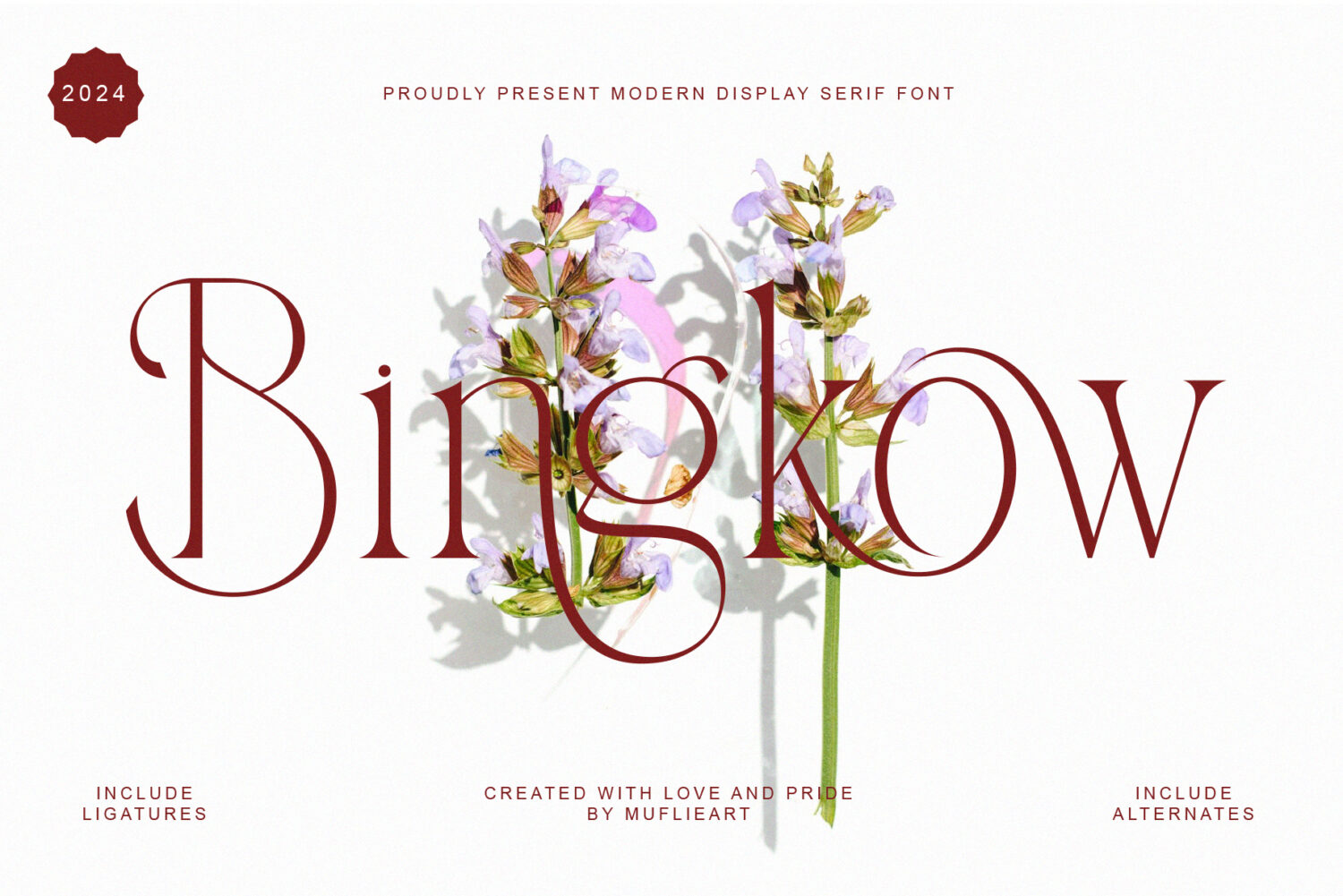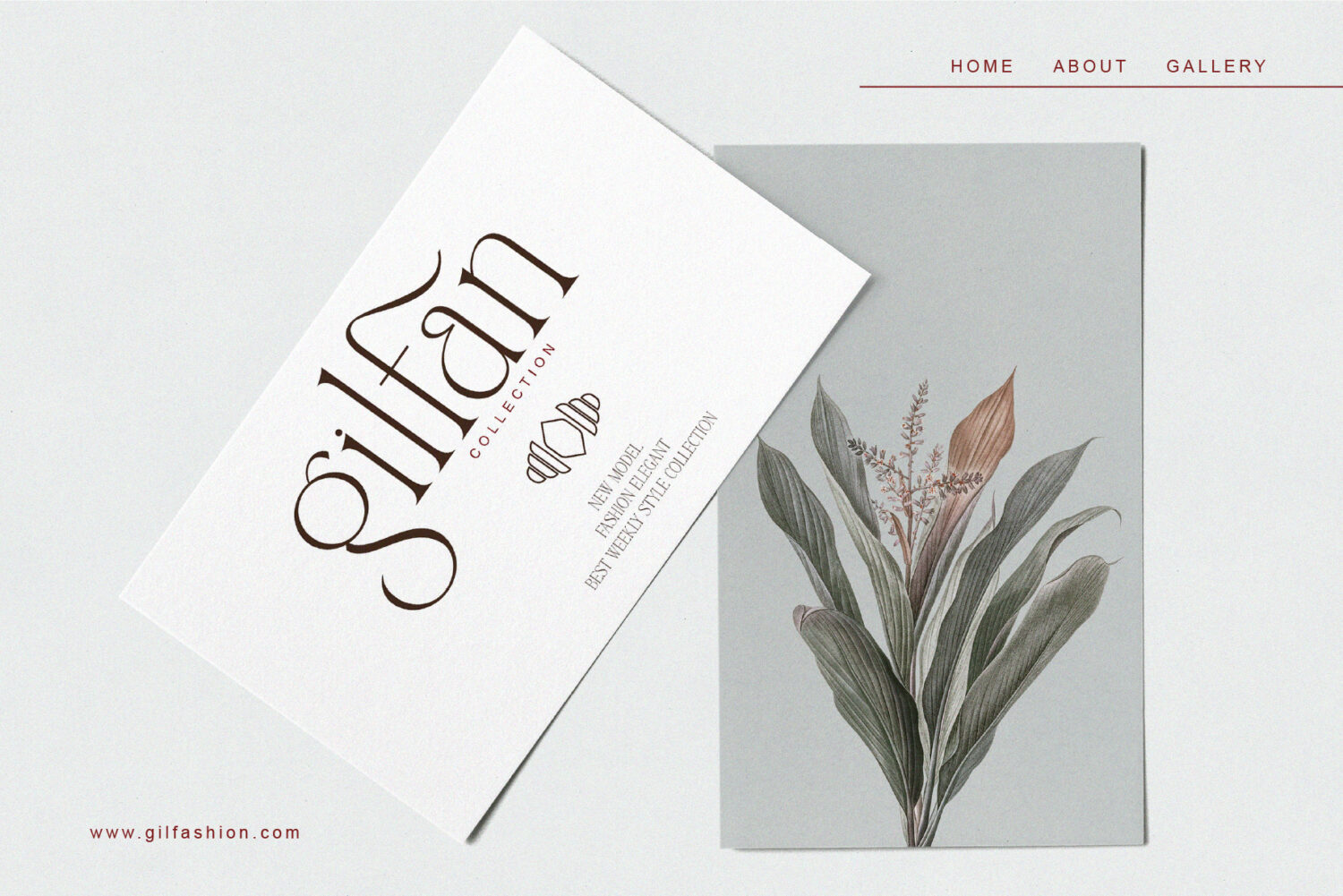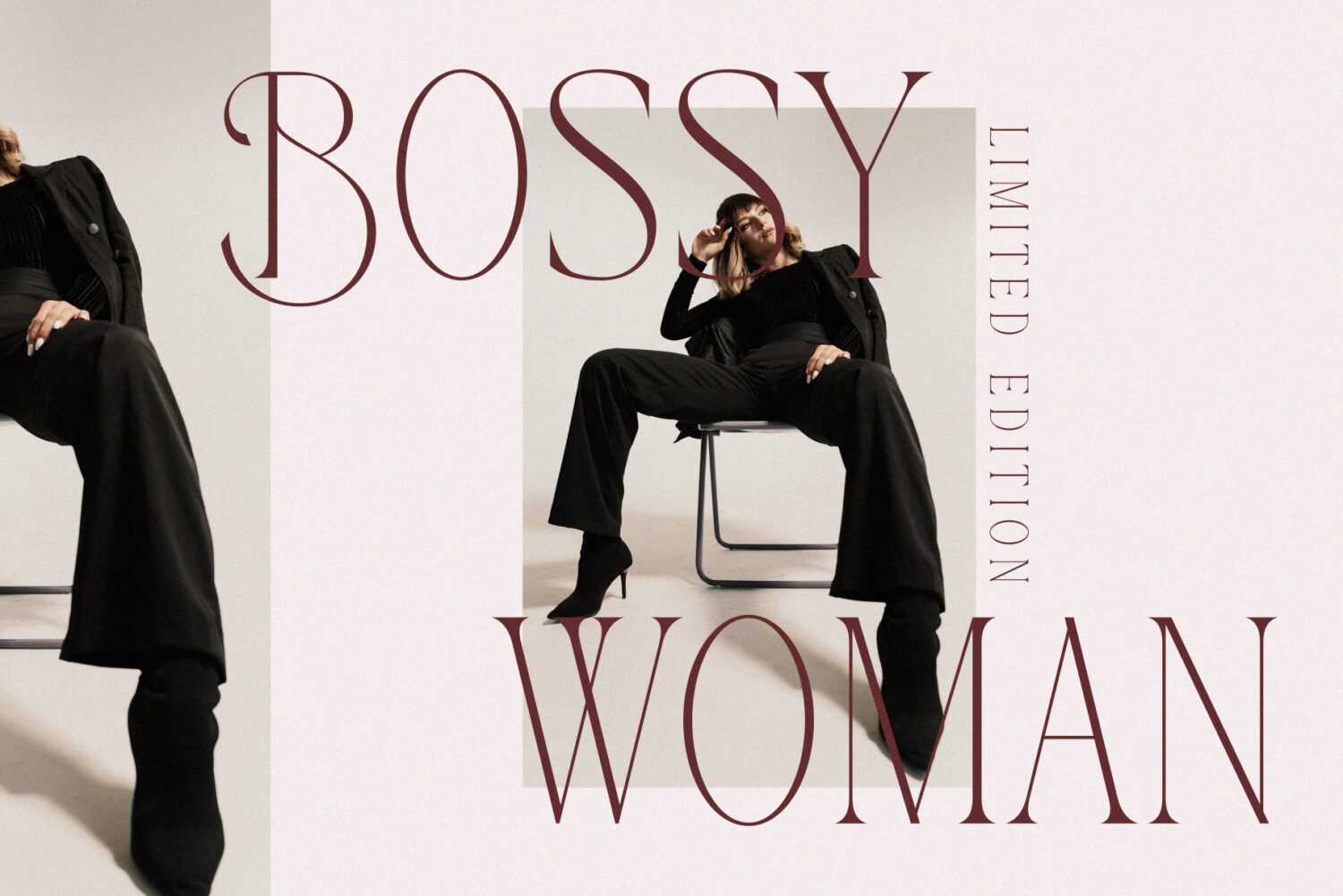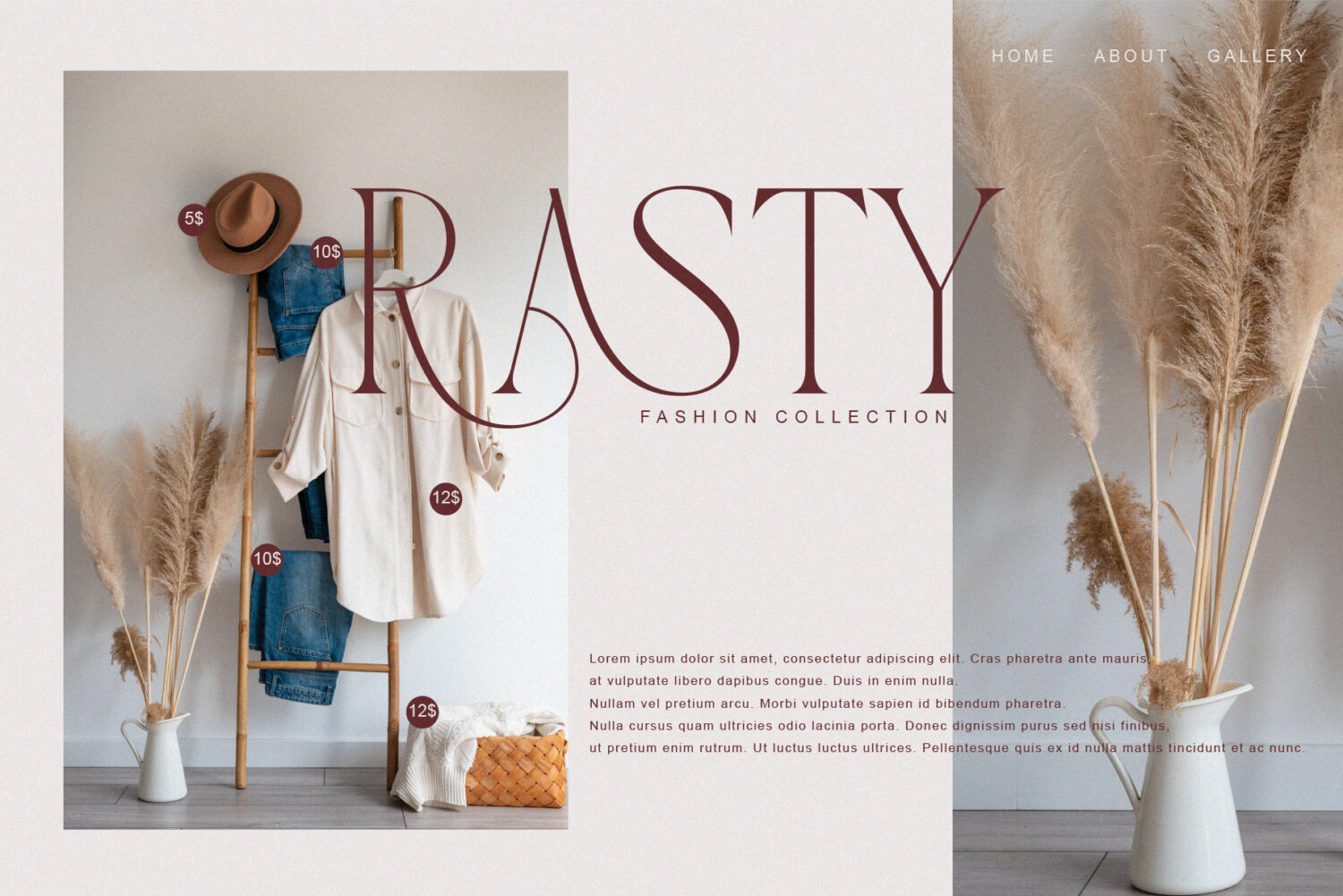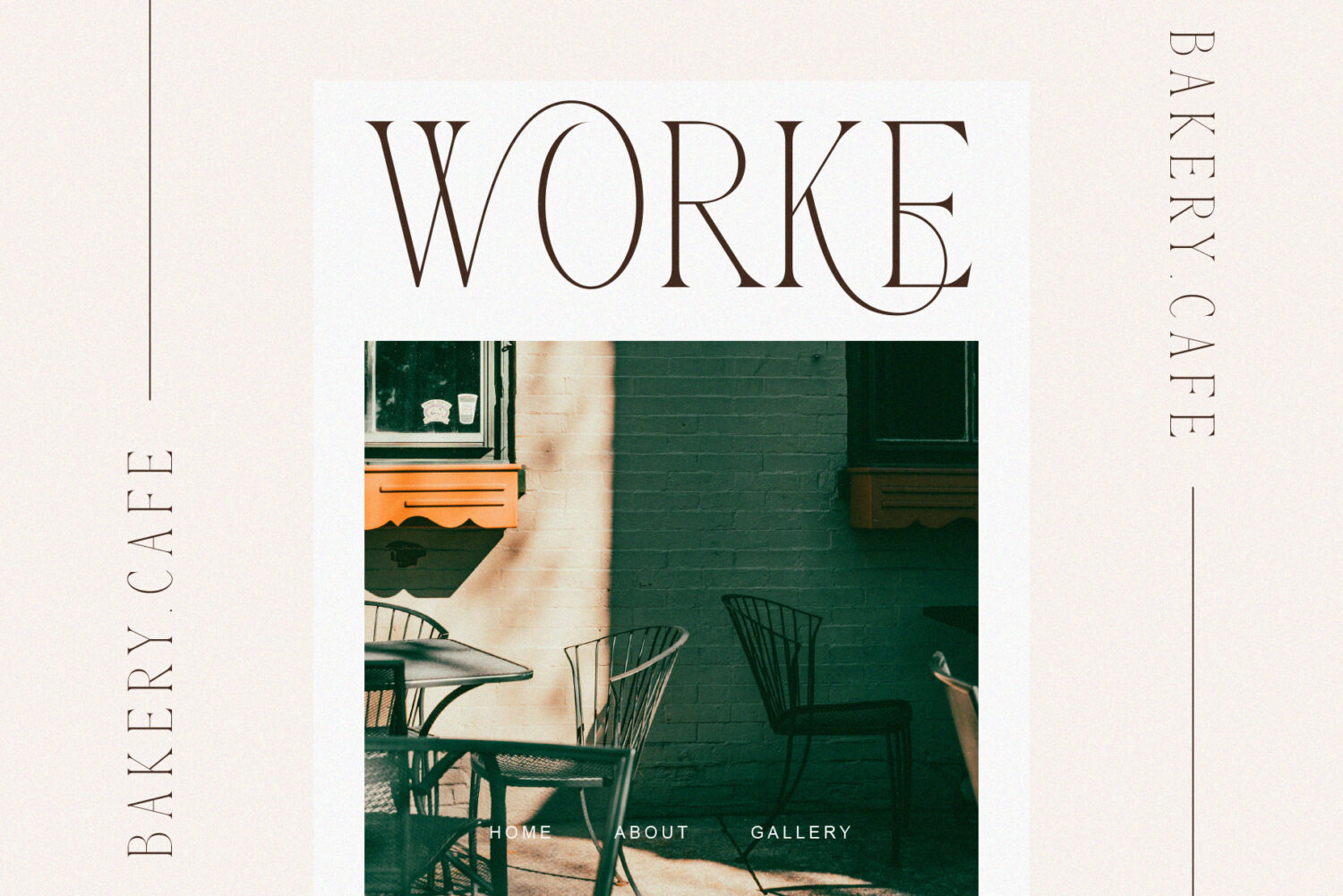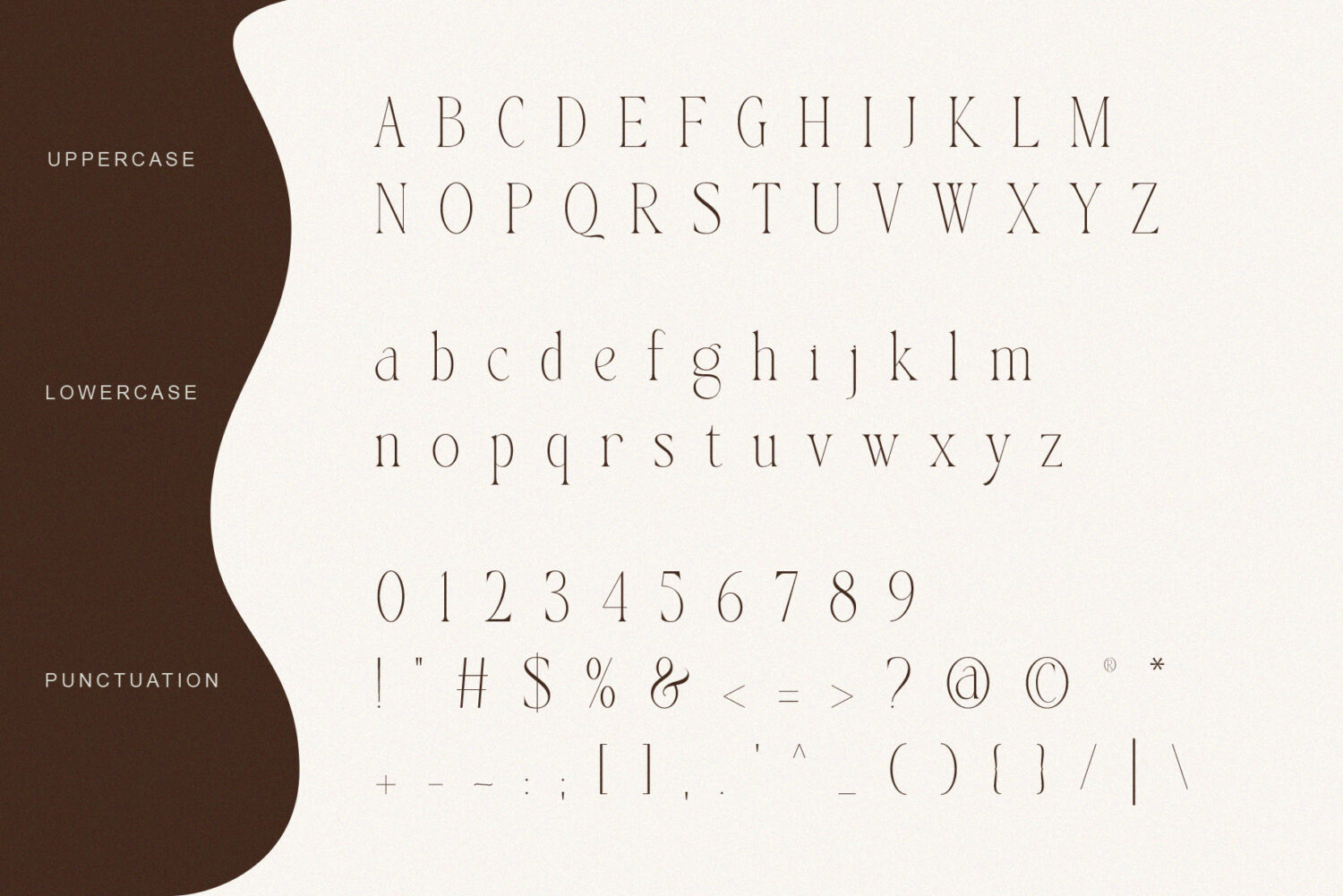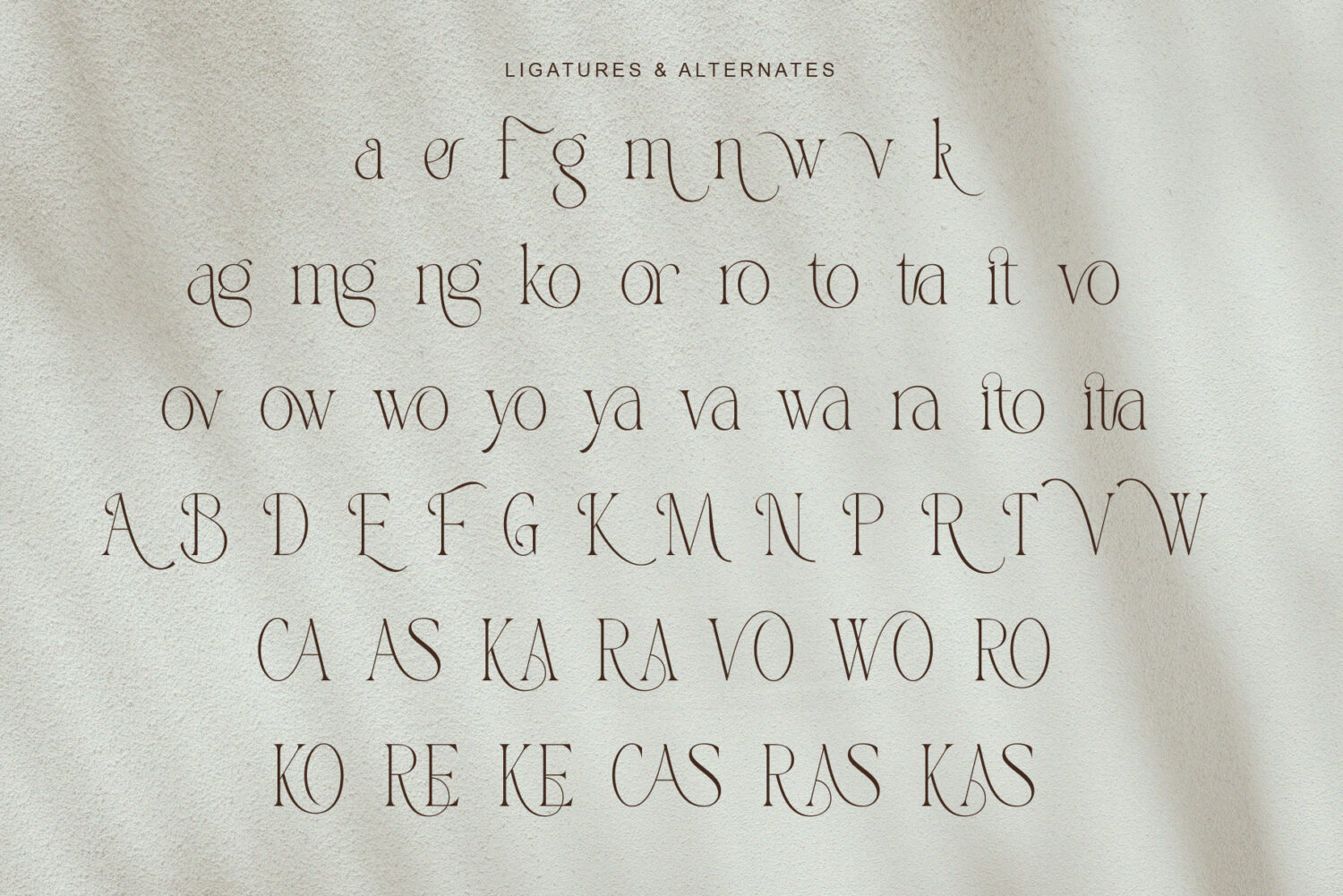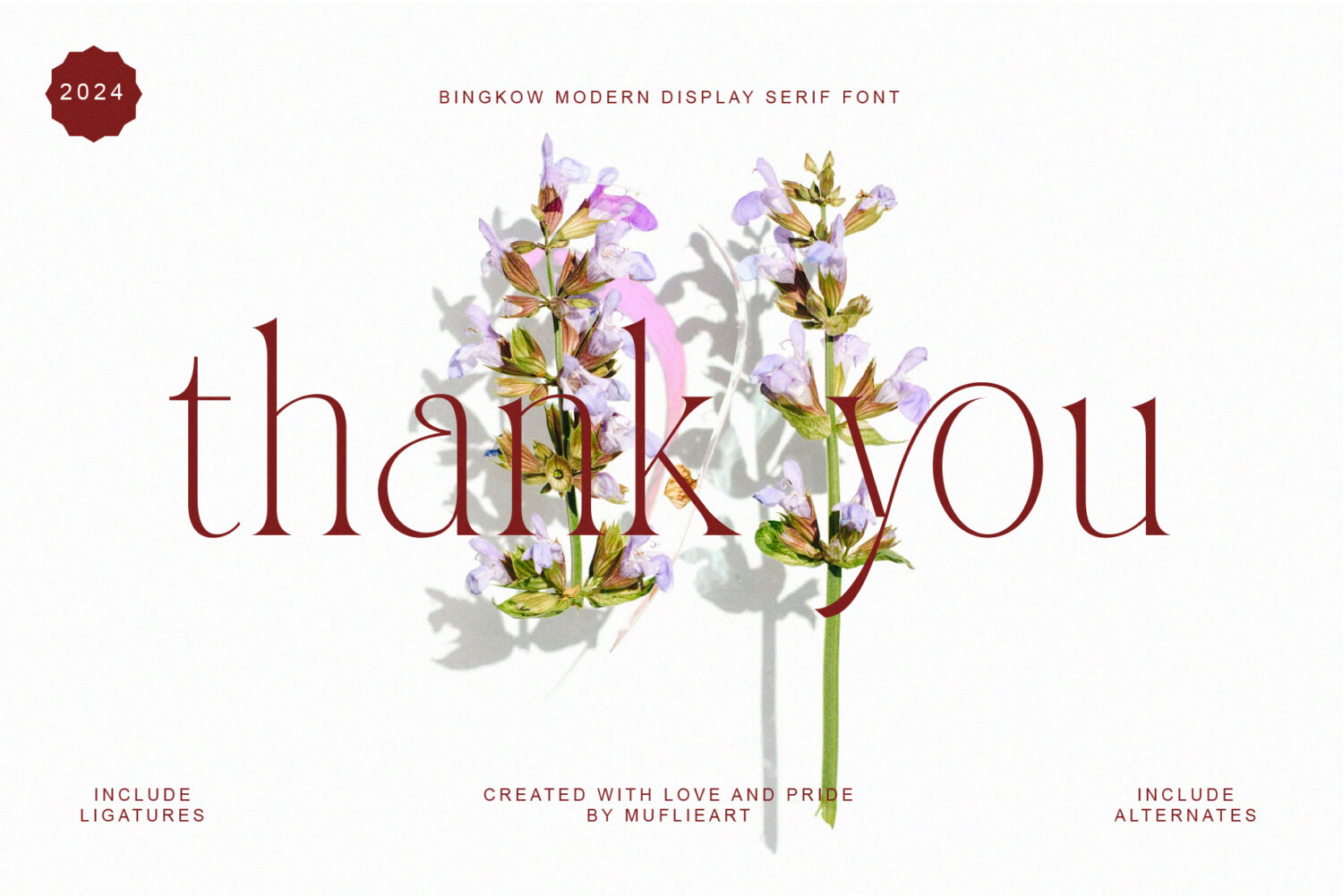
Introducing **Bingkow** the elegant, beautiful, and modern Serif. With its modern and minimalist look, Bingkow brings a luxurious, classy, and clean style to your projects such as websites, modern logos, brand identities, social media quotes, wedding stationery, magazines, and more!
Bingkow features unique and classy capital letters A to Z and also comes with unique alternates making Bingkow a beautiful font that can be customized for various projects and jobs you want.
Bingkow is perfect for: logos, brands, wedding invitations, business cards, greeting cards, posters, magazines, social media, agenda prints, and websites.